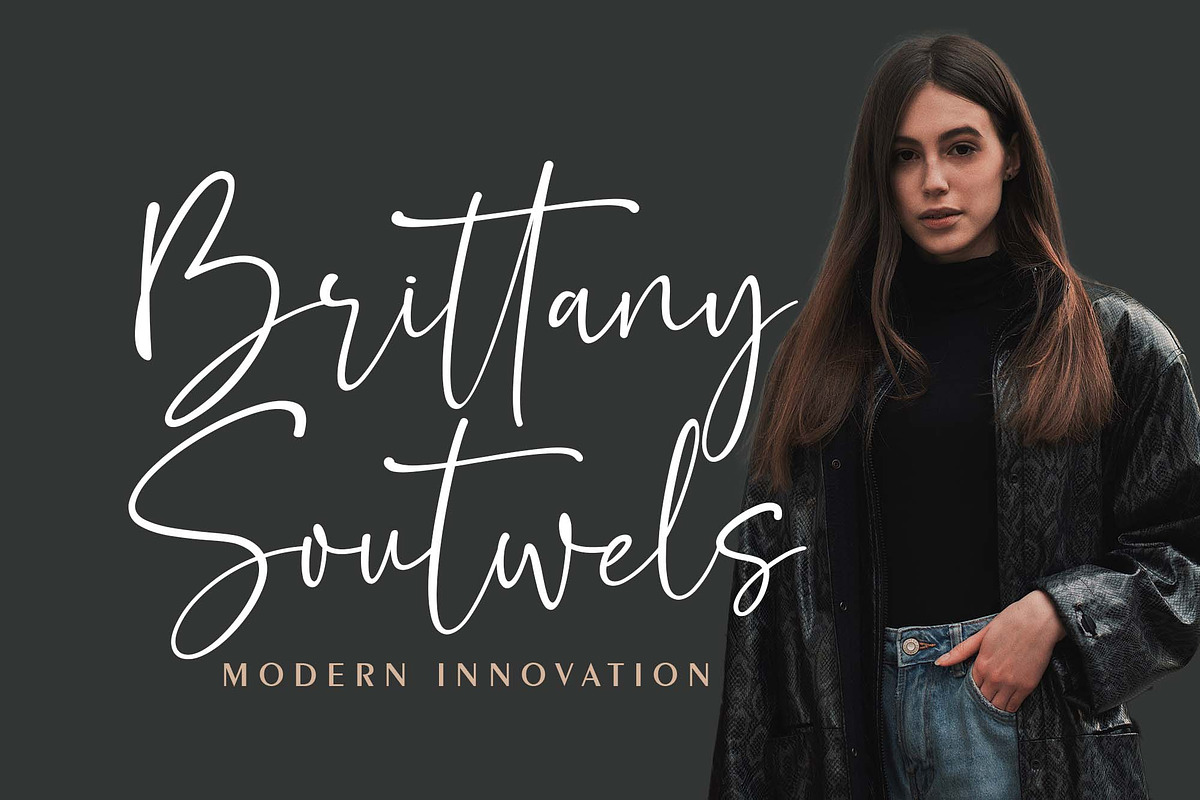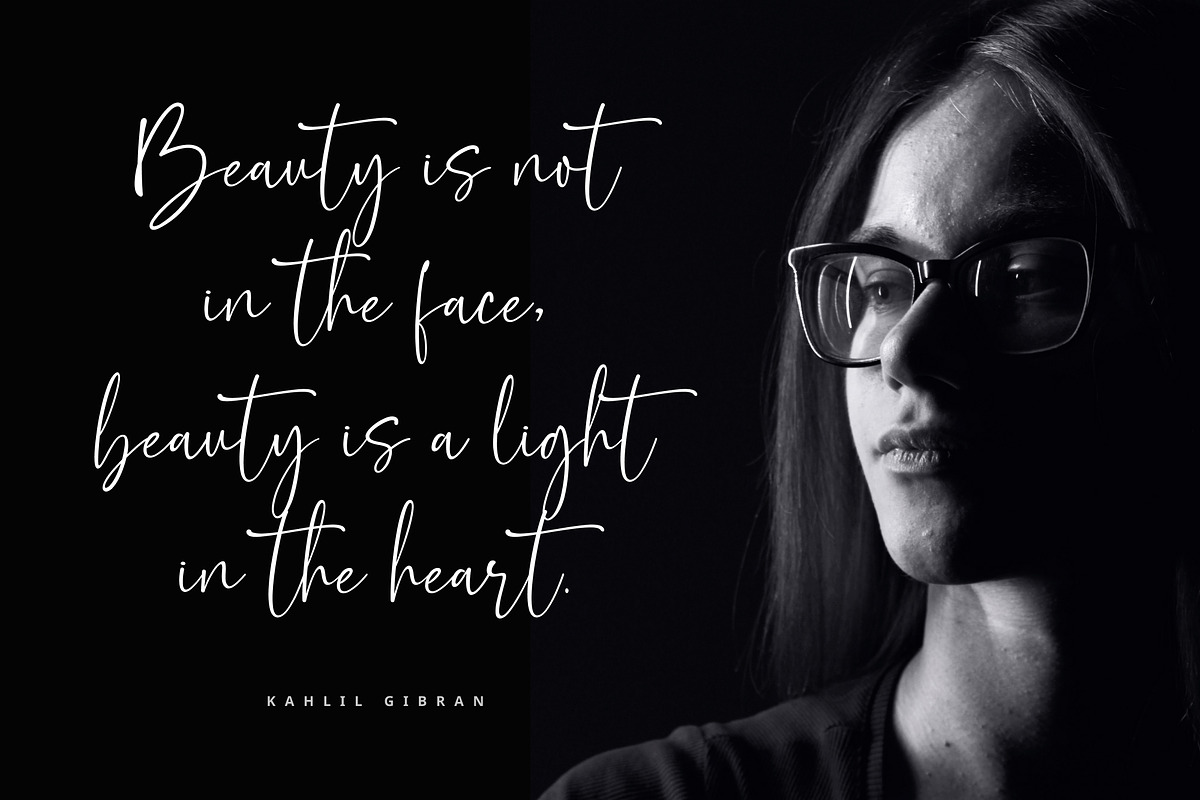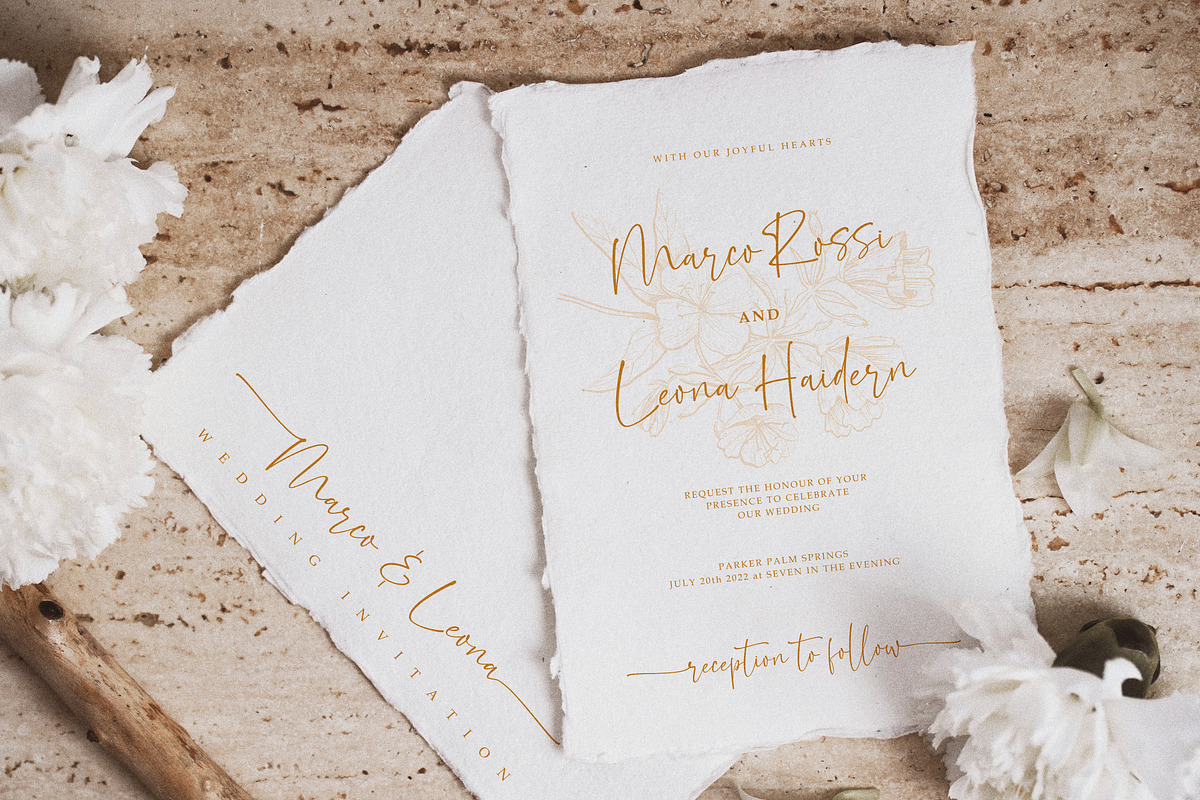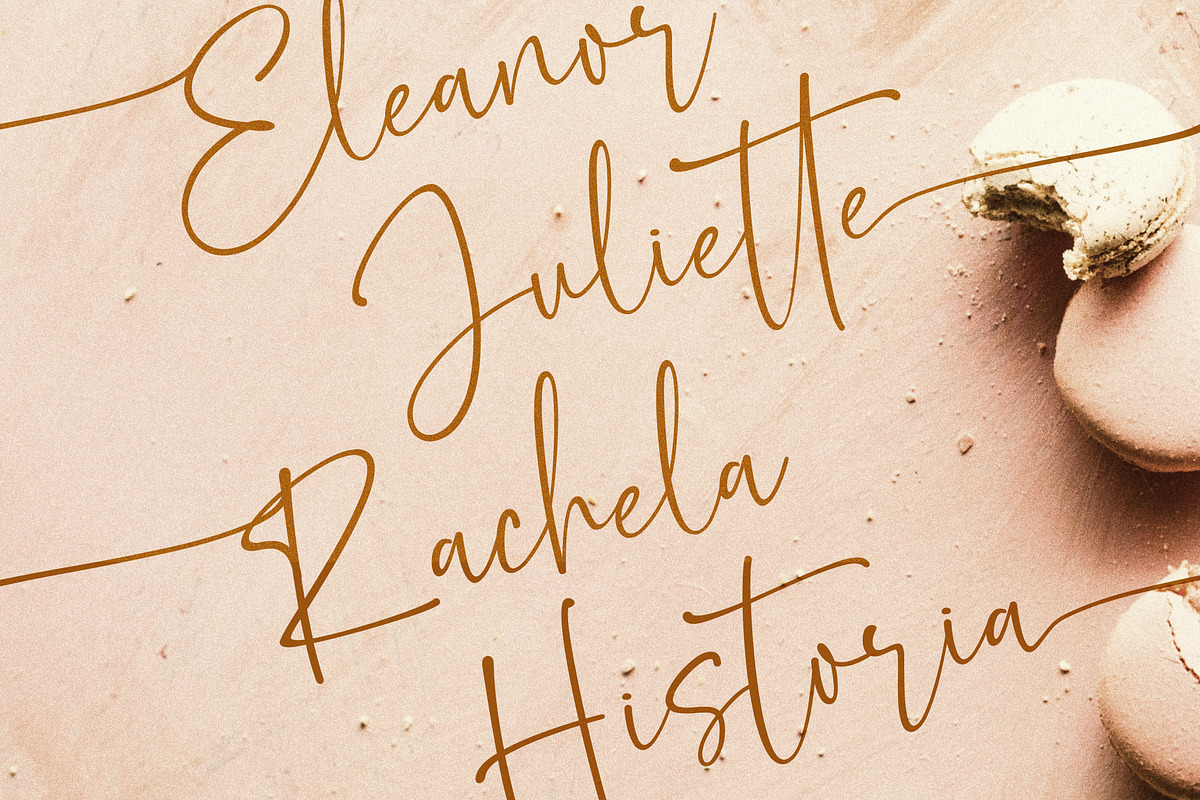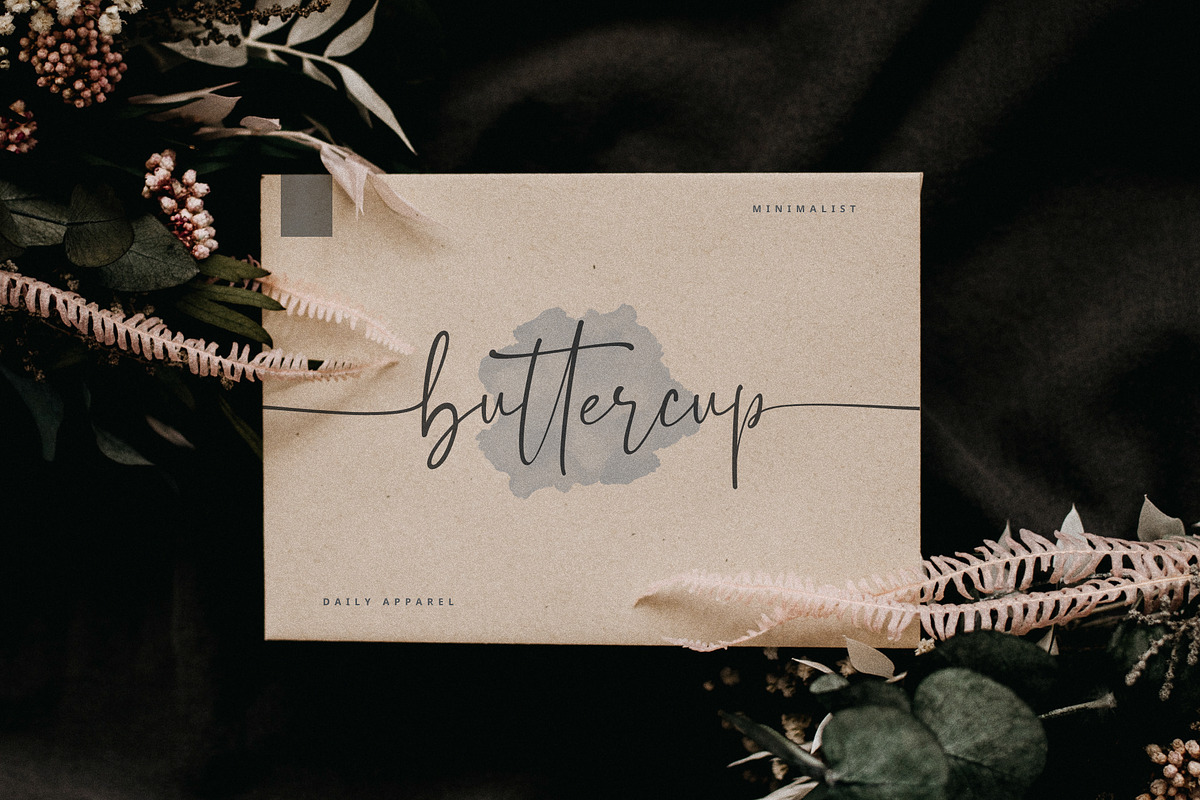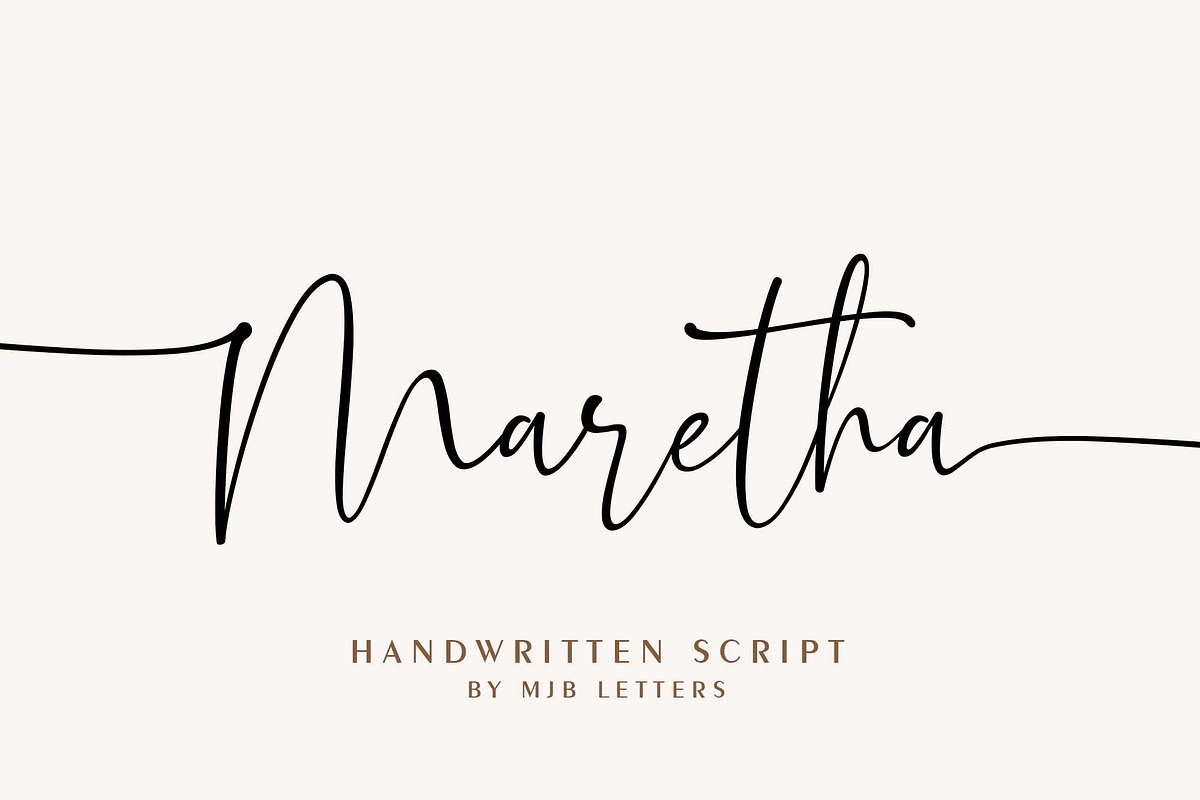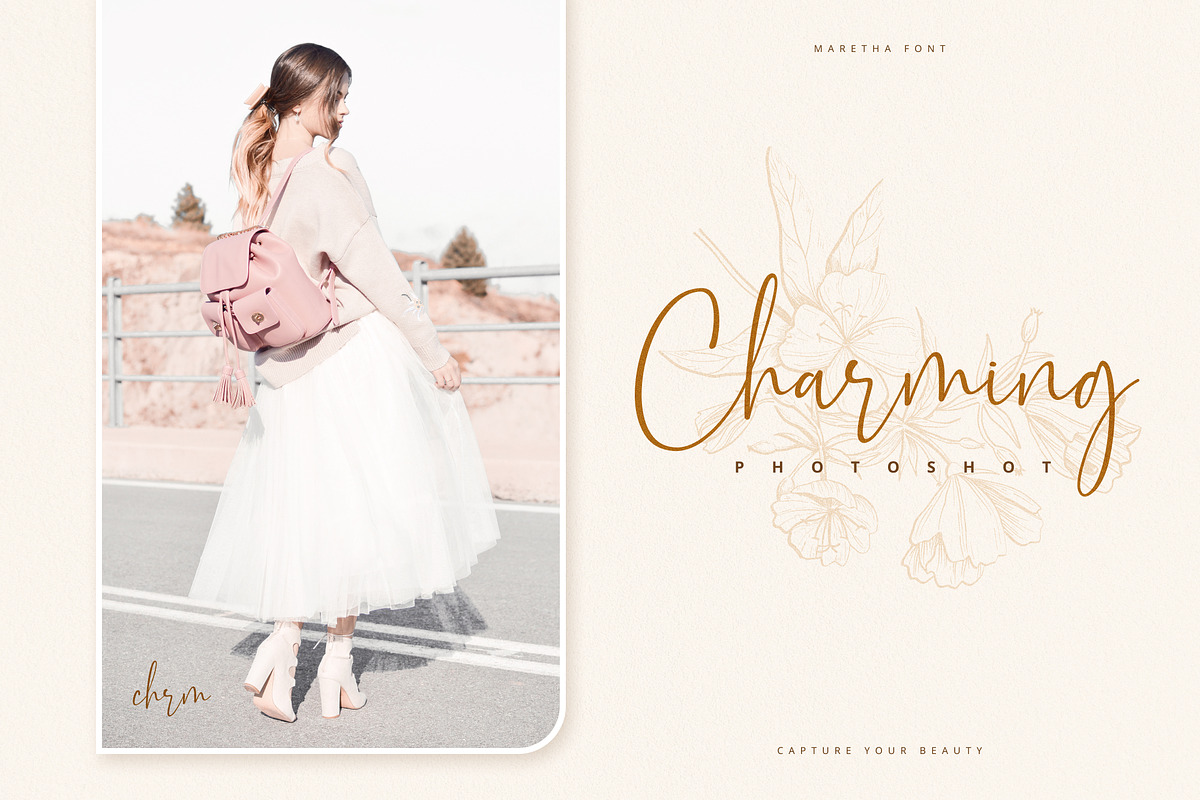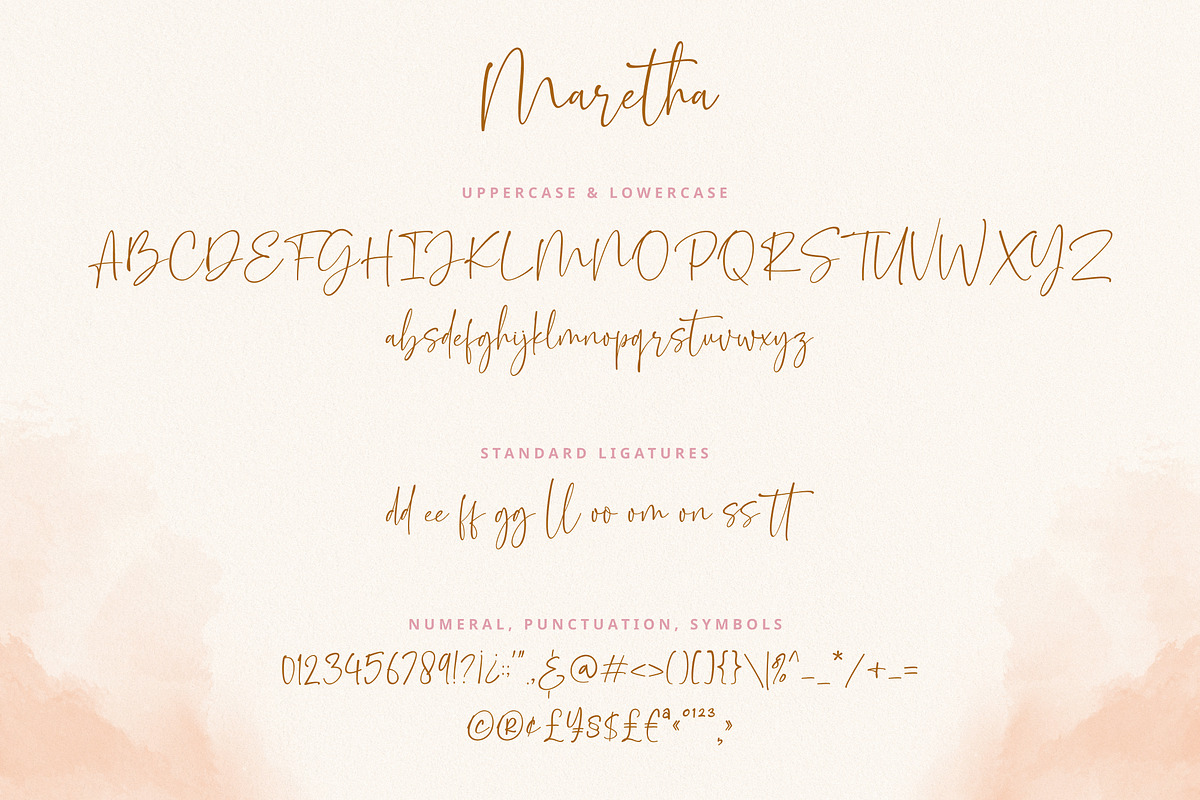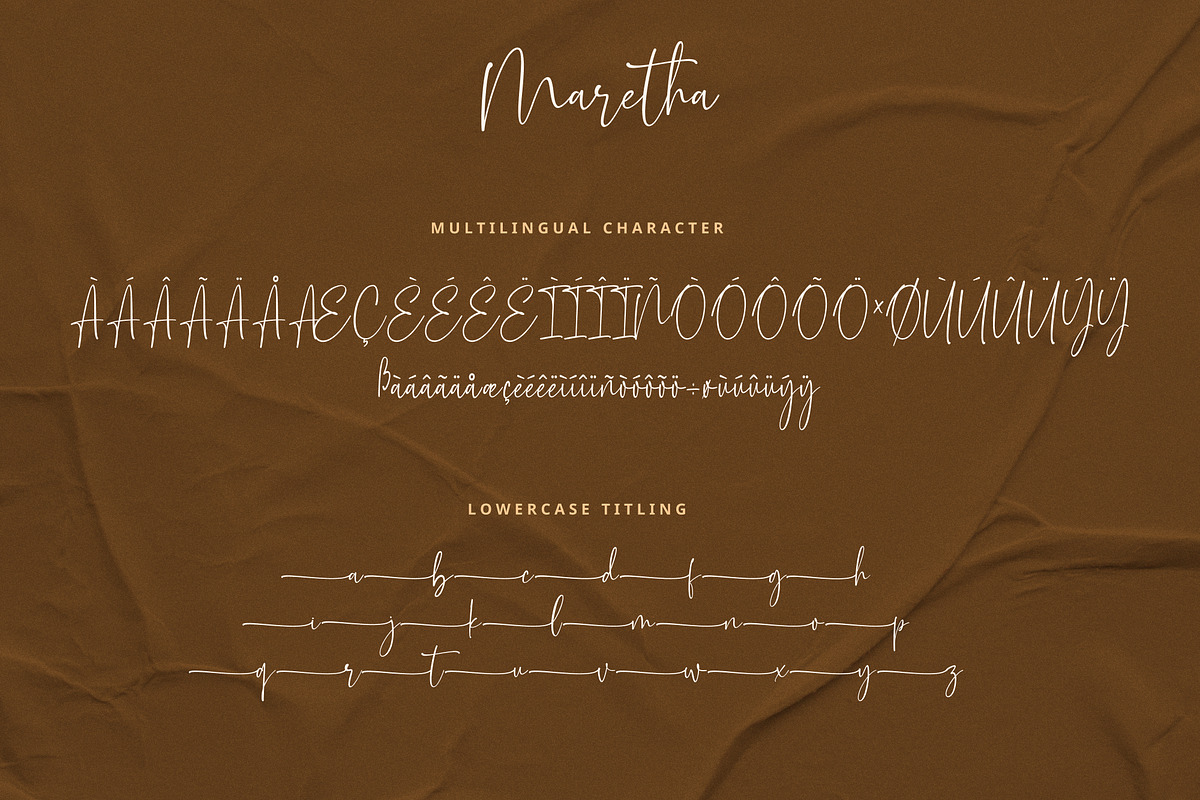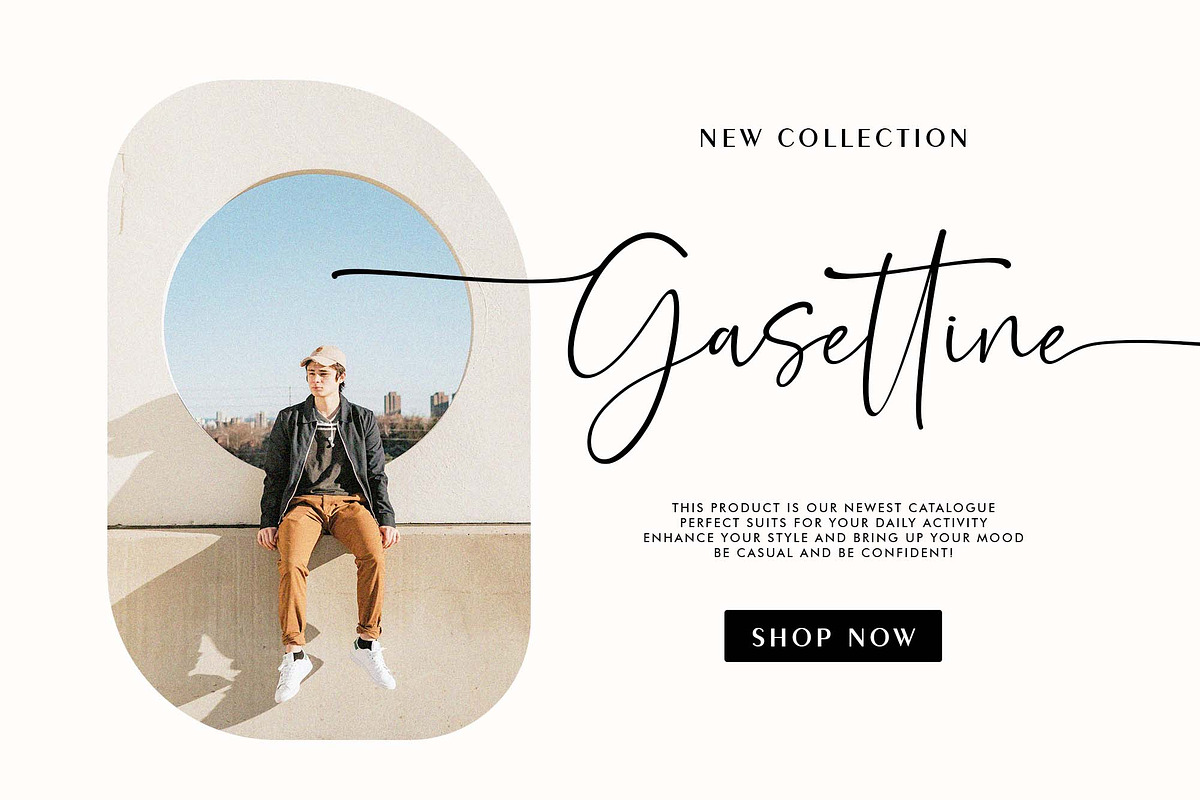
Maretha Script
Maretha is a classy handwritten script, it has beautiful beginning and ending swashes, this font is perfect for branding design, packaging, logo design, watermark, fashion design, wedding invites, and more.
this font includes the full set of lowercase and uppercase letters, numeral, punctuation, multilanguage support, titling, and ending swashes. You will get :